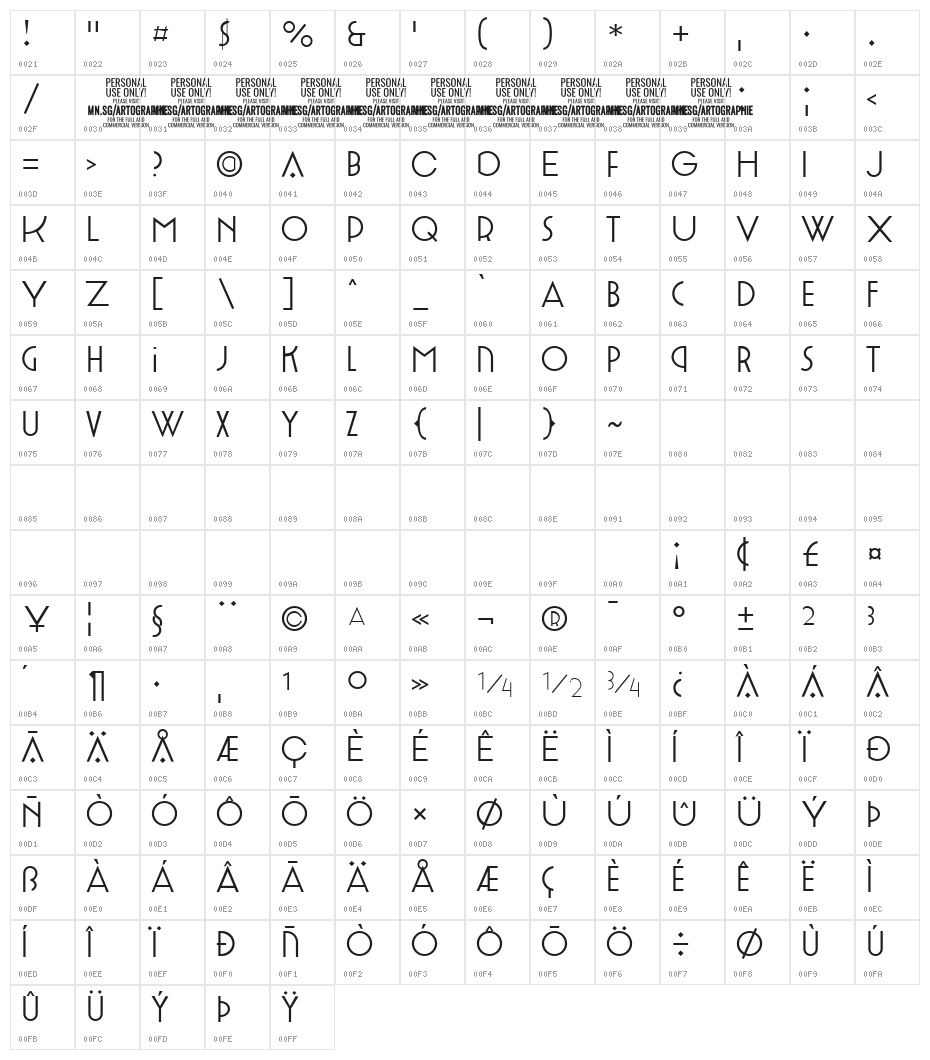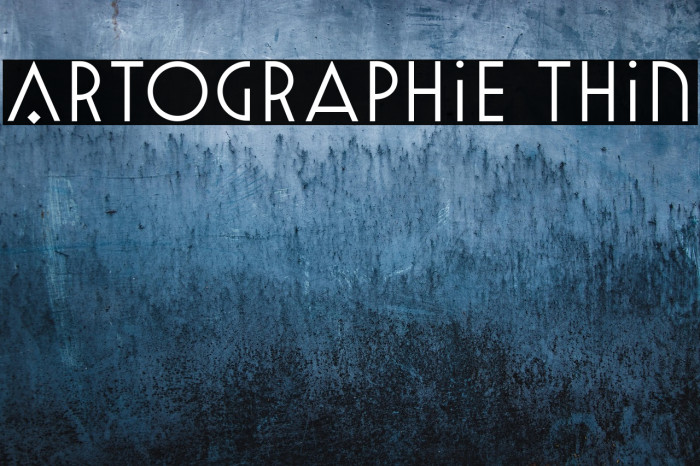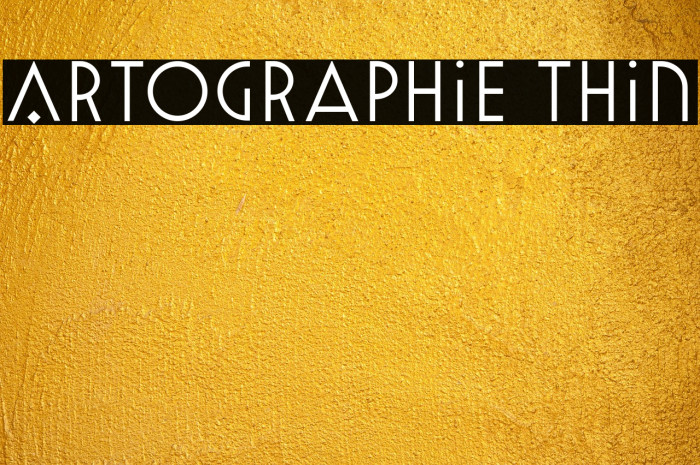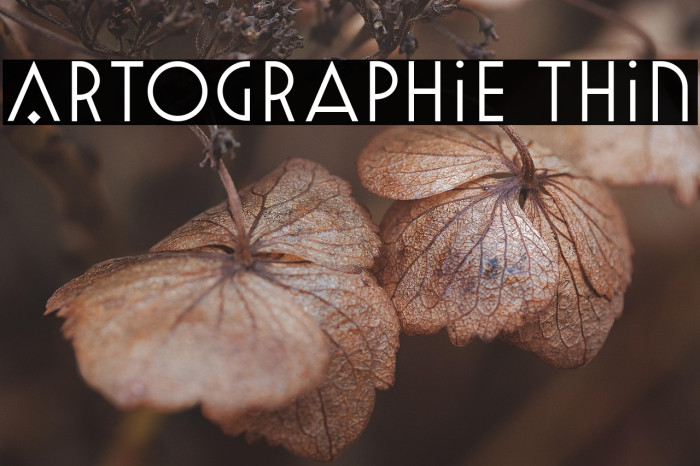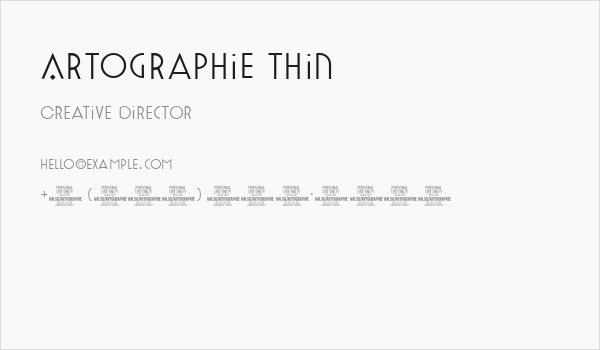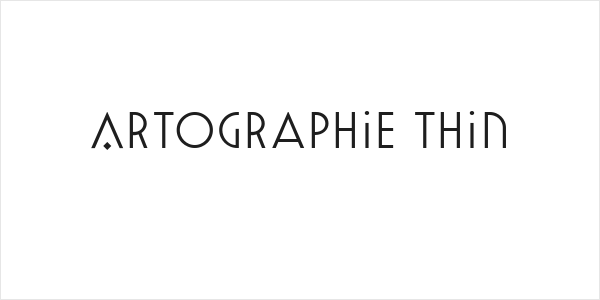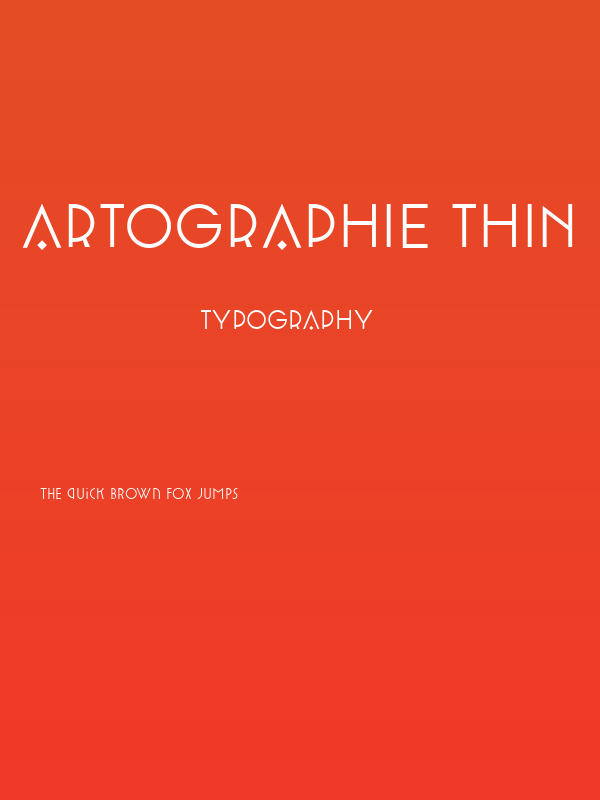
Artographie Thin Font
Artographie Thin Description
This typeface features a sleek and modern design with a geometric influence. The characters are crafted with clean lines and a minimalist aesthetic, making it suitable for contemporary design projects. The uppercase letters exhibit a uniform height, while the lowercase letters maintain a consistent baseline, enhancing readability. The font includes a full set of numerals and a variety of special characters, providing versatility for different applications. Its thin weight and precise character shapes contribute to a refined and elegant appearance, ideal for projects that require a sophisticated touch.
Use CaseHeadlines, Logos, Editorial Design
Proposed ProjectsIdeal for branding, editorial design, advertising, and digital interfaces where a modern and elegant look is desired.